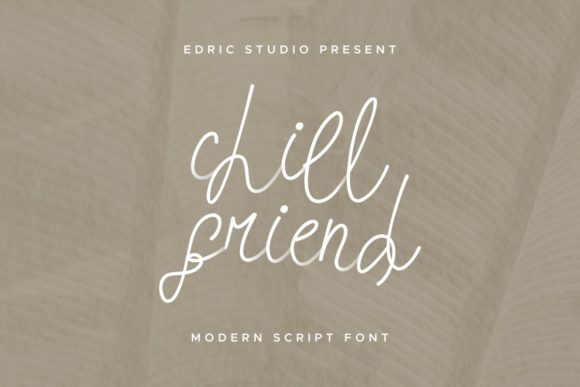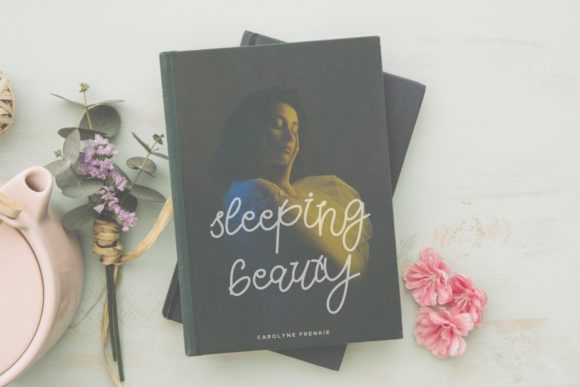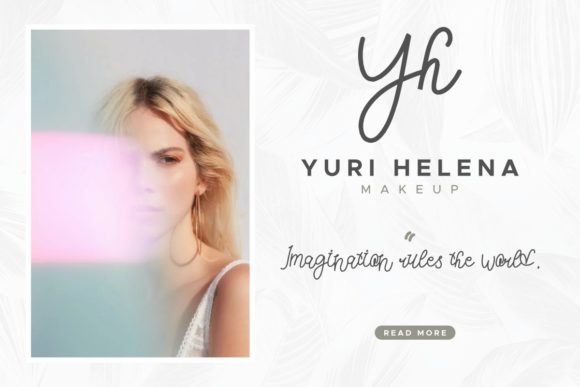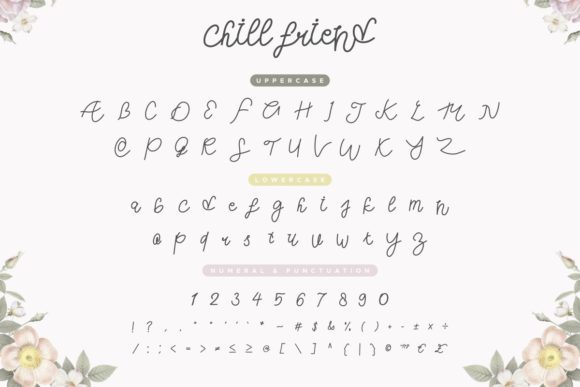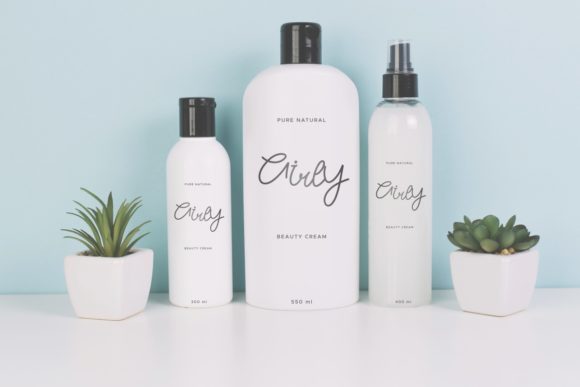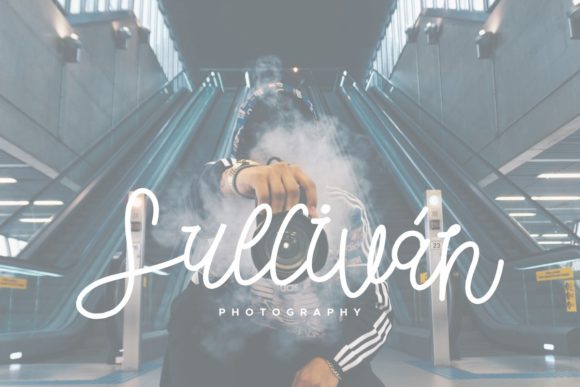
The Ultimate Guide to Chill Friend Font: Elevate Your Designs with Elegance
I’ll never forget the time I was working on a wedding invitation project, and my client asked for a font that was both charming and elegant. I scoured the internet, tried countless fonts, but nothing seemed quite right. That was until I stumbled upon Chill Friend Font. It was love at first sight! 💕 The flowing lines, gorgeous glyphs, and stunning alternates instantly captured the essence of the wedding theme. In this article, I’ll share my experience with Chill Friend Font, its features, and how to make the most of it in your designs.
An Honest Review of Chill Friend Font
- ✨ Elegant and charming aesthetic, perfect for wedding invitations, thank you cards, and quotes
- ✅ Features a varying baseline, smooth lines, and stunning alternates for added creativity
- ✅ Suitable for a wide range of design projects, from logos to business cards
While Chill Friend Font is an excellent choice, there are a few things to keep in mind:
- ⚠️ May not be the best fit for very formal or corporate designs, as it leans towards a more whimsical feel
- 🤔 Some users may find the font’s script style a bit challenging to read in large blocks of text
A Practical Guide to Using Chill Friend Font
The Backstory of Chill Friend Font
Chill Friend Font was designed with the intention of creating a beautiful, handwritten font that captures the essence of elegance and charm. The designer aimed to create a font that would be perfect for a wide range of design projects, from wedding invitations to logos and business cards. While the designer’s background is unknown, it’s clear that they put a lot of thought into crafting a font that’s both visually stunning and highly versatile.
PUA (Private Use Area) encoding allows font users to access a wide range of glyphs and swashes, making it easier to customize and personalize their designs. This encoding ensures that users can easily access the font’s features, even if they’re not familiar with font editing software.